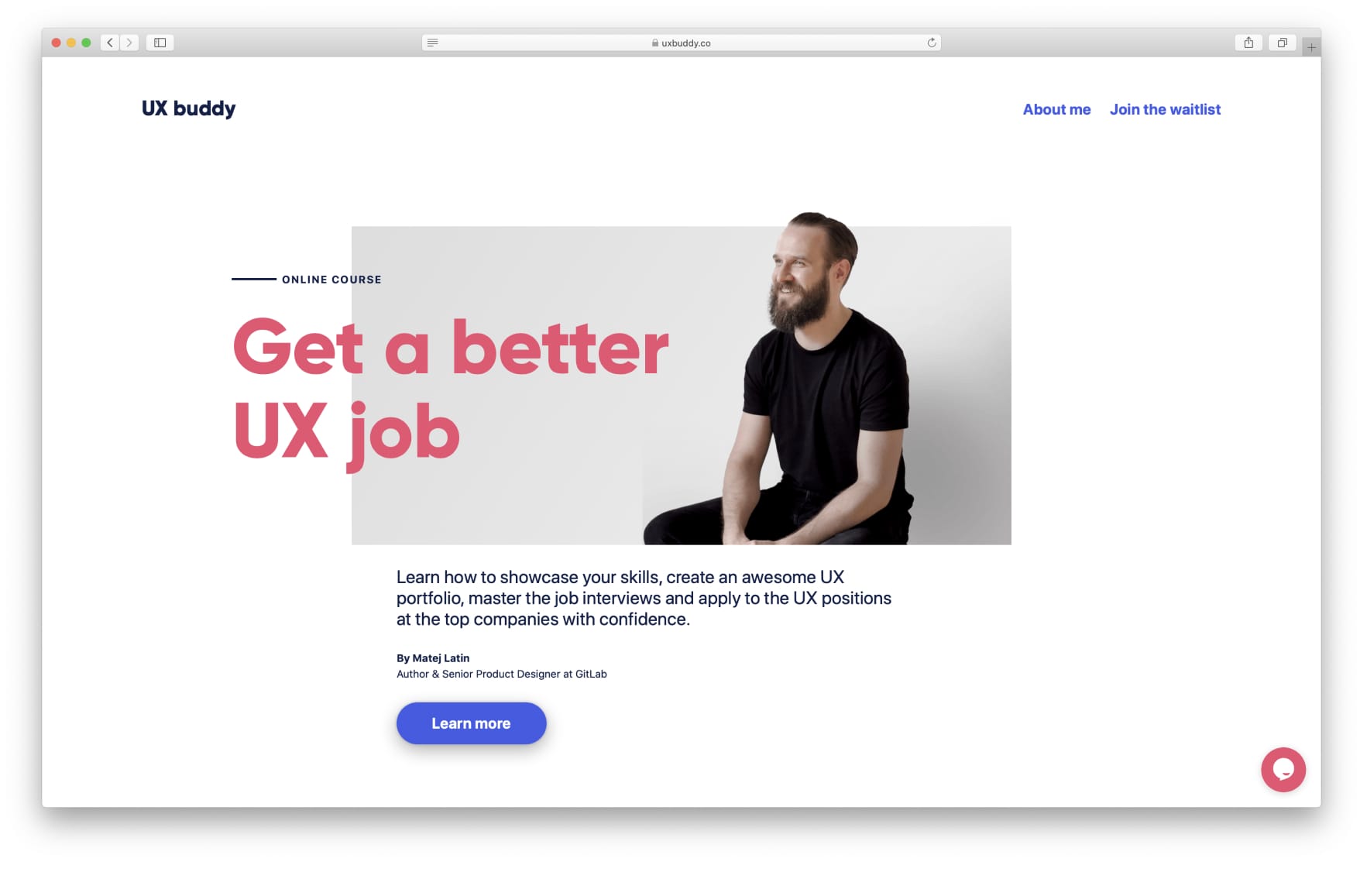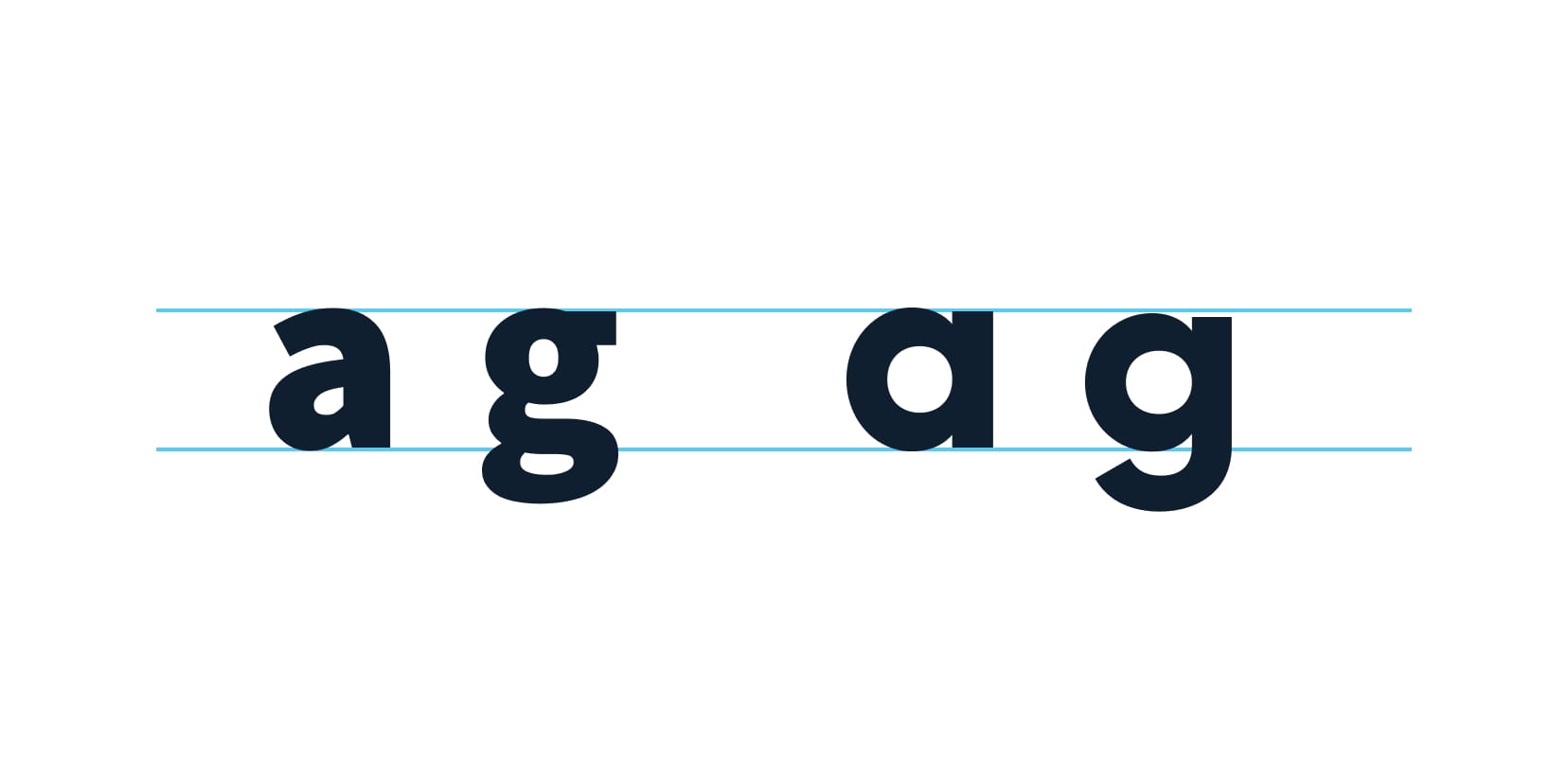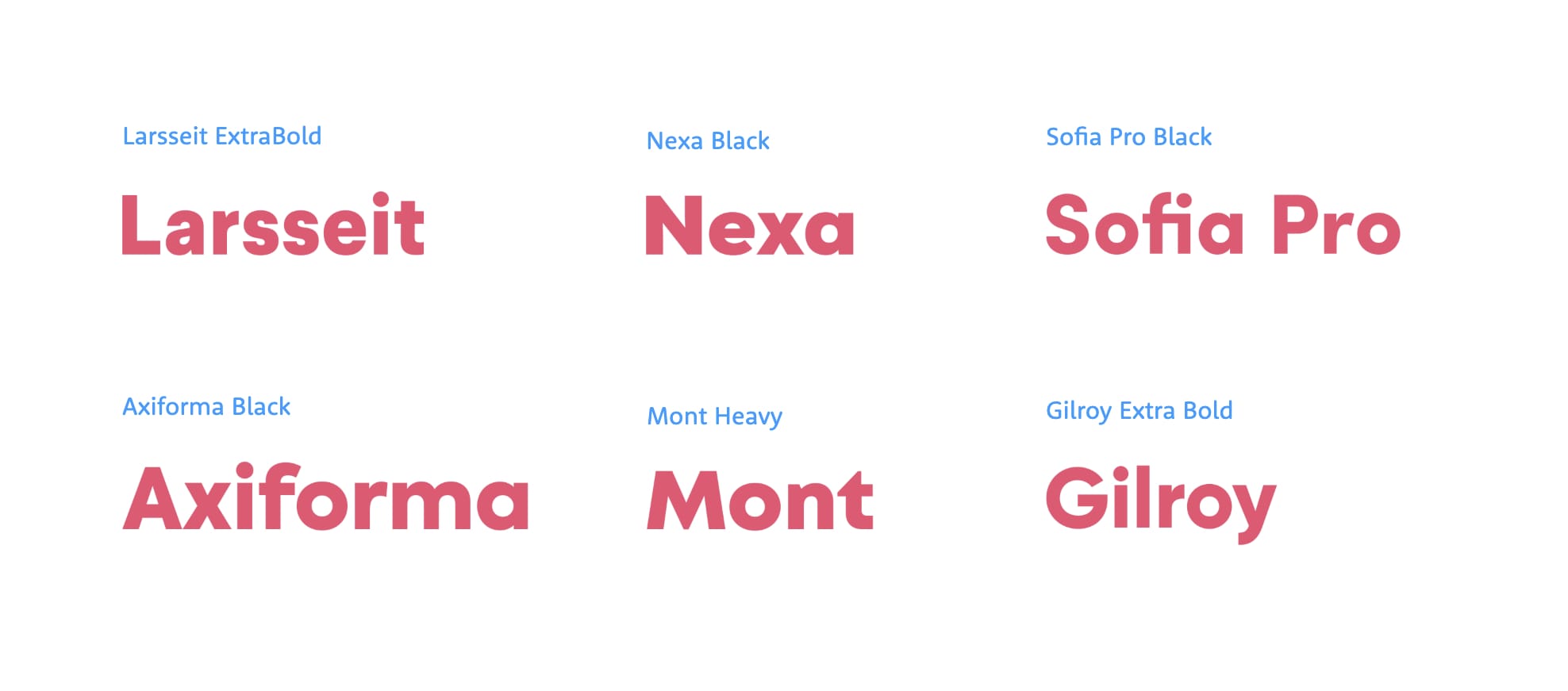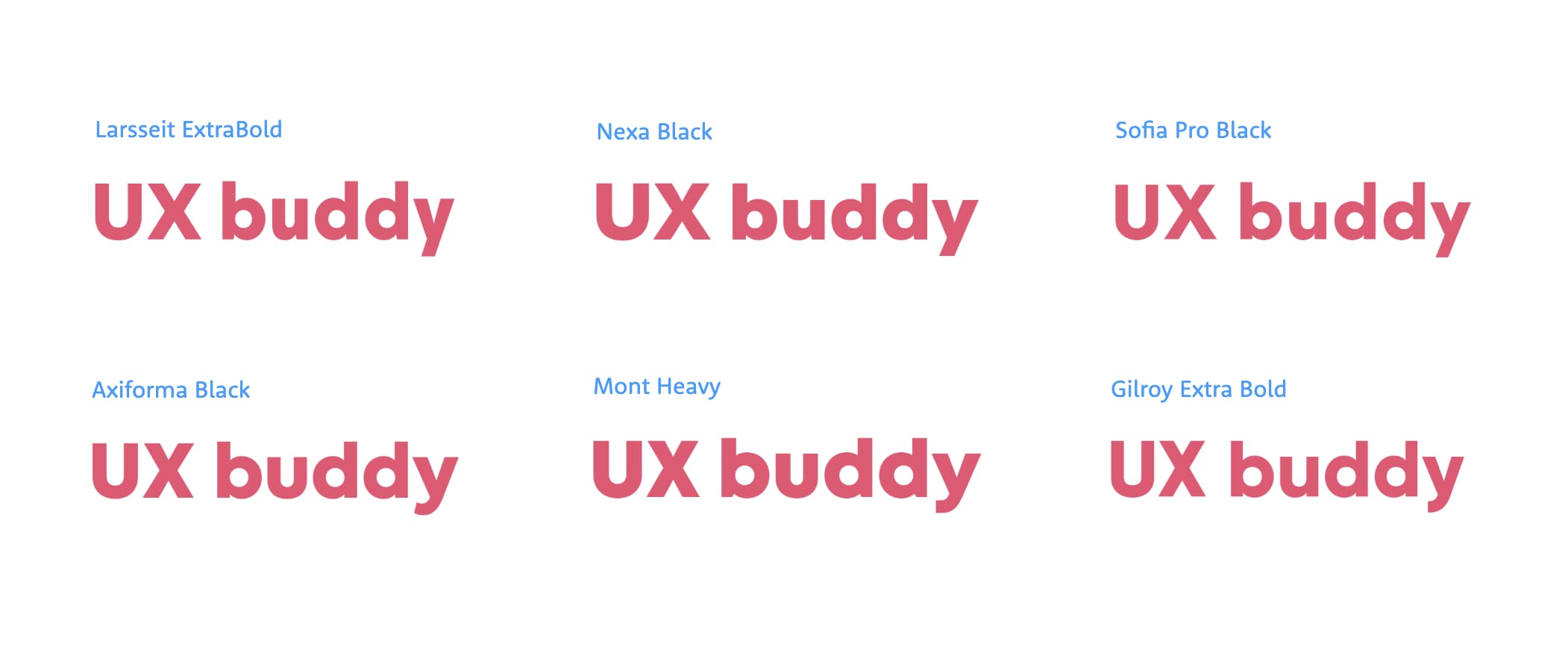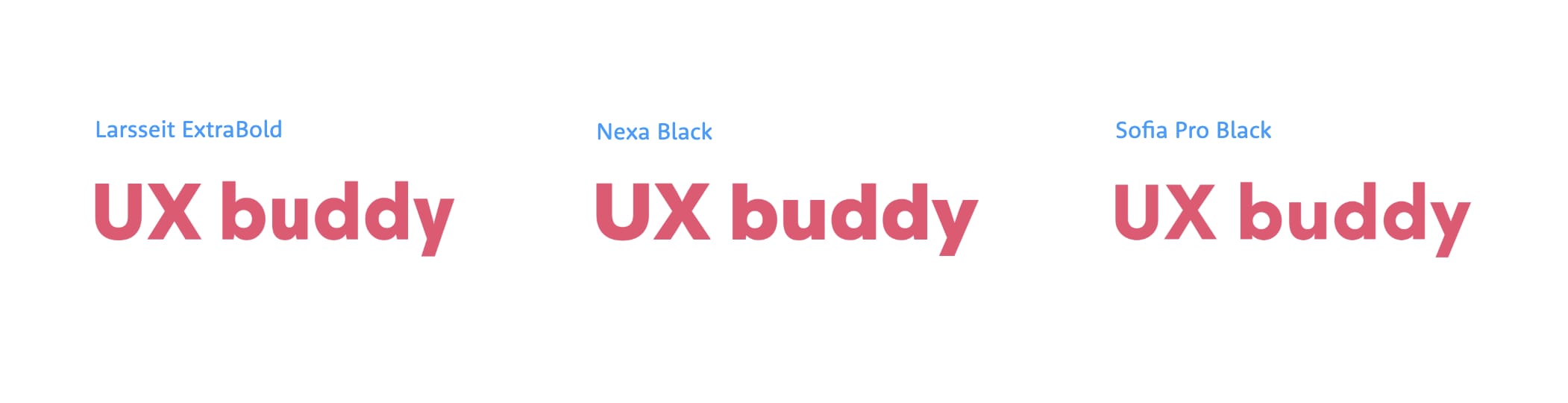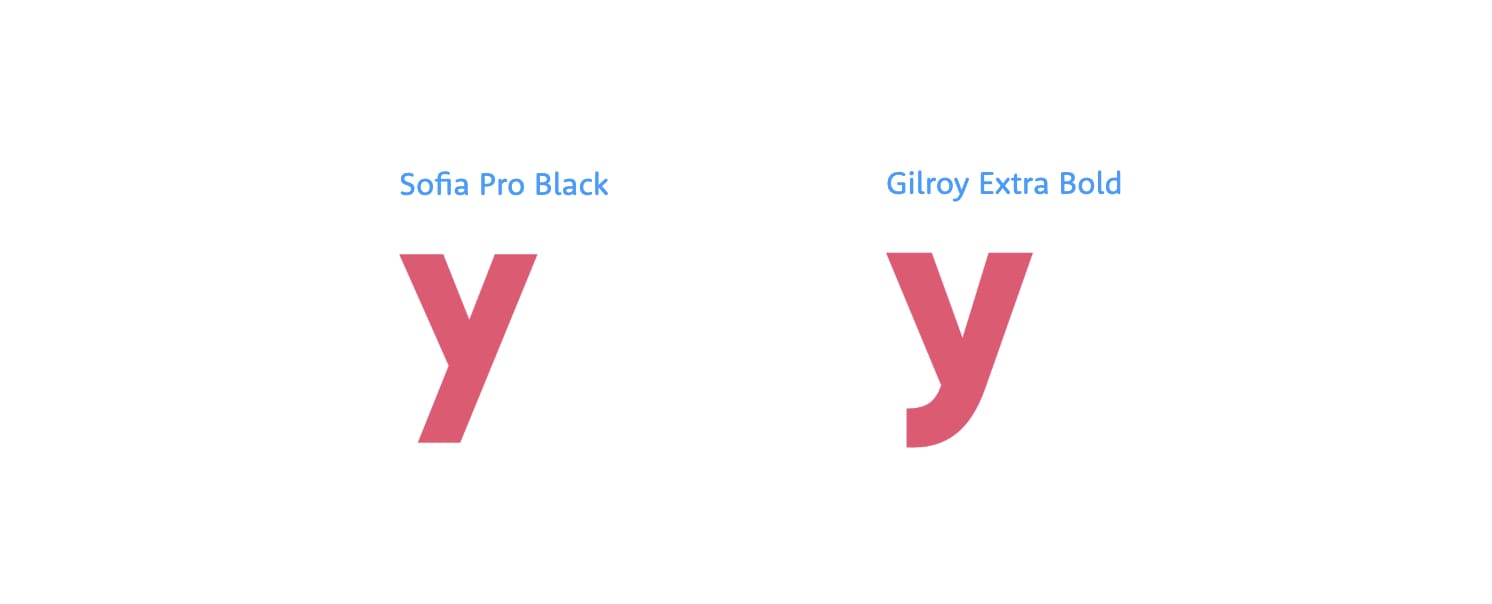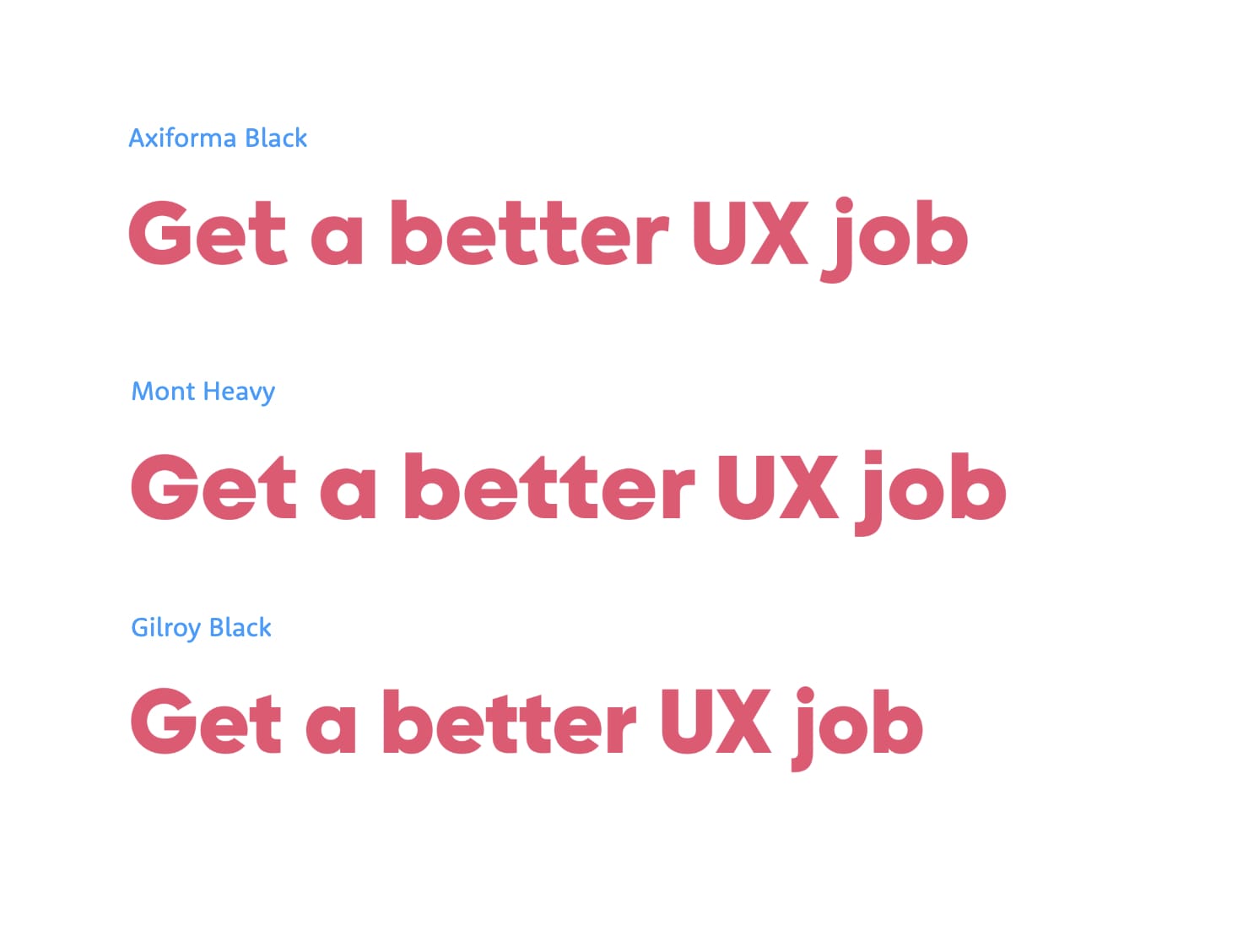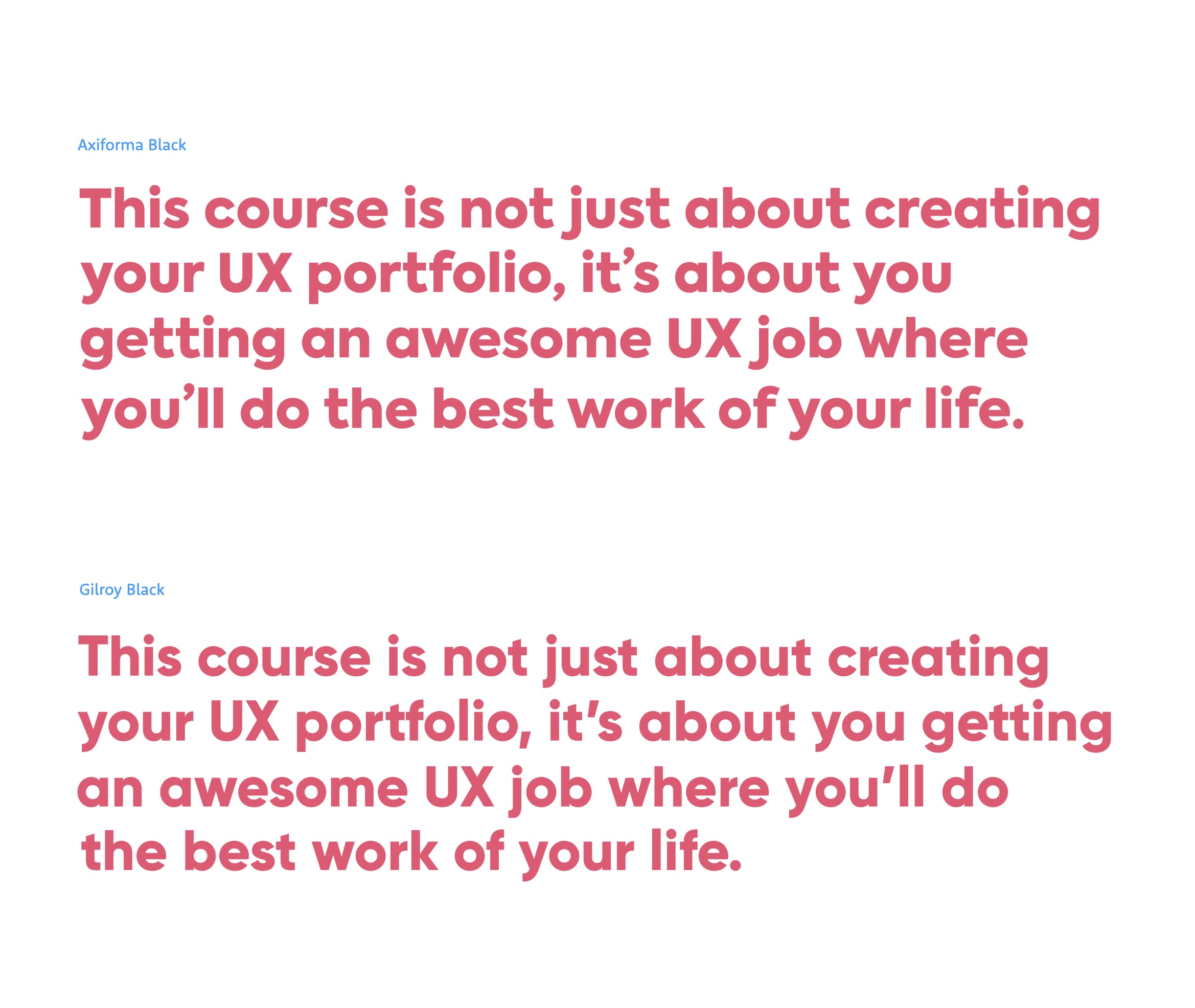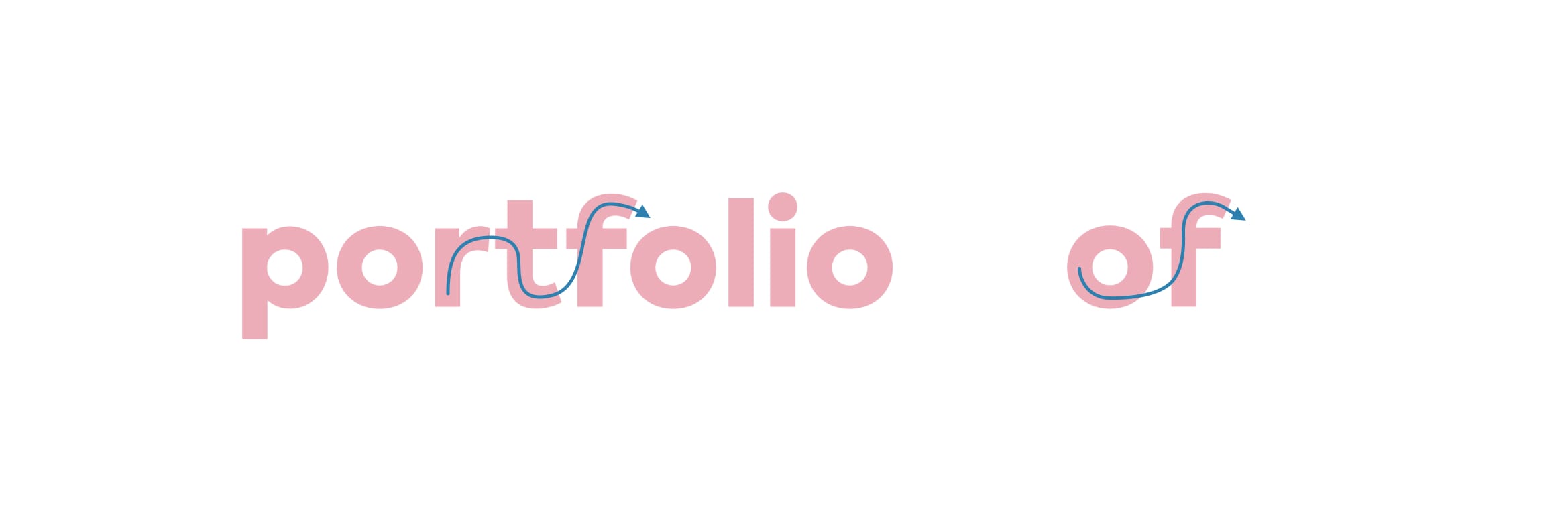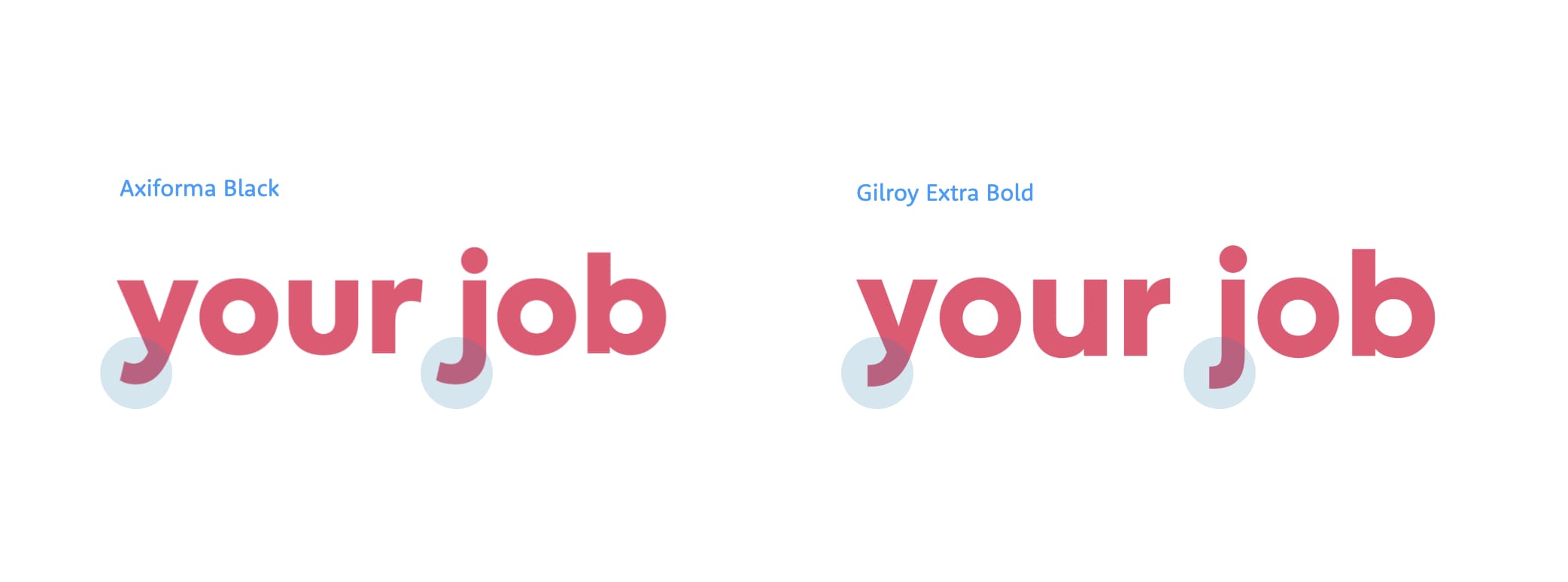
I recently received an email from a designer called Jared. He went through the typography lessons that I offer as part of the free course and he was very grateful for them. He said he learned a lot but also had one important question: how do I go about choosing a font for my project?
He told me that he works for a design agency and choosing fonts for websites they work on is something he does all the time. It’s also something that frustrates him a lot since he never studied design and typography, so he mostly does it by his “gut feeling”. That, or he copies a font from a website he likes. He’s aware of his limitations when it comes to making original font choices and his frustration grows every day. And he’s not alone.
Since I launched my free web typography course in 2017, I tend to receive a couple of similar emails every month. I wrote about choosing fonts more in details in my web typography book and I also explained my process with a concrete example. But not everyone buys the book so I decided to explain my process again, with another example—a new personal project I recently started working on.
UX Buddy
UX Buddy will be an online course for UX and product designers that are looking to take the next steps in their careers. I had to switch a lot of jobs before I found the one that aligns with what I want to do and what I get to do. So I want to share my experience and help guide designers with less experience towards finding a better UX job.
I work for GitLab where we assign a UX buddy to newly-joined designers to help them get started (the UX buddy is simply another designer on the team tasked to help out the new designer). The first few months are overwhelming for new designers so UX buddies help out by guiding them, explaining how stuff works and encouraging them to do certain things. With this course, I want to do the same for the designers that got stuck in their UX career. But instead of being their buddy only after they join a company, I want to help out with everything that comes before that—finding good UX companies, writing case studies, interviewing, support etc.
The finished website for UX Buddy
The finished website for UX Buddy (Source)
So this is where the idea for UX Buddy came from and what its goals are. These are really good starting points for defining the branding. Because the course revolves around my experience as a job seeker, and also as an interviewer in the hiring process, I wanted the branding to reflect my personality. I wanted it to be minimalistic but not sterile. Warm but not unprofessional. To the point instead of beating around the bush. I then did a two-day design sprint to come up with the value proposition of the course and some content for the website. The goal was to present the course on a single web page. What I came up with was:
Get a better UX job
for the title of the page, and:
This course is not just about creating your UX portfolio, it’s about you getting an awesome UX job where you’ll do the best work of your life.
for the value proposition. This was great and more than enough to start working on the website and, with it, choosing the font.
Choosing the font
Ok, now how do we go about actually choosing a font for our project? In my web typography book, I recommend seven things to consider, the key three are the following:
The goal of the website and its content
The goal here is to present my new course and myself as a credible and capable person to teach about the topic. The website is not about reading long articles, it needs to get a visitor’s attention quickly.
Body text or headings
Are we choosing a font for body text or for headings? Since the goal is to captivate visitors, I wanted to focus on choosing the right font for the headings.
The text
Reading the text we’re designing for is fundamental—how can you choose a font for something you have no idea what it’s about? Reading samples of text should be right at the start of the process. Don’t use Lorem Ipsum, if you can’t get samples of content, try to find a similar website and “borrow” its content until you do get them.
For UX Buddy, I already had the title, the value proposition and the name. So I was good to go.
What I was looking for
At this point, I had some text to work with, I knew what its goal was and I also knew I was focusing on finding the perfect font for headings. That, combined with the branding that reflects my personality, led me towards using a geometric sans serif font, my favourite style. If you don’t know the basic font styles and how to tell them apart, check out my guide to recognising font styles. It’s the very first step in making original font choices.
I first looked through the fonts of this style on Google Fonts and Adobe Fonts but couldn’t find a match. For example, I knew I wanted the font to have single-storey “a” and “g” lowercase letter styles.
Double-storey “a” and “g” on the left, single-storey “a” and “g” on the right
I just love the simplicity of them and I thought it aligns well with the minimalistic and simplistic branding I was after. I couldn’t find any fonts like that on those font providers so I went on to look on myfonts.com. I found a couple of great matches there: Larsseit, Nexa, Axiforma, Mont, Sofia Pro and Gilroy. I also knew I wanted to use the bold weight as the primary style, to help evoke that feeling of friendliness. Here they are, already set in the primary colour I was planning to use.